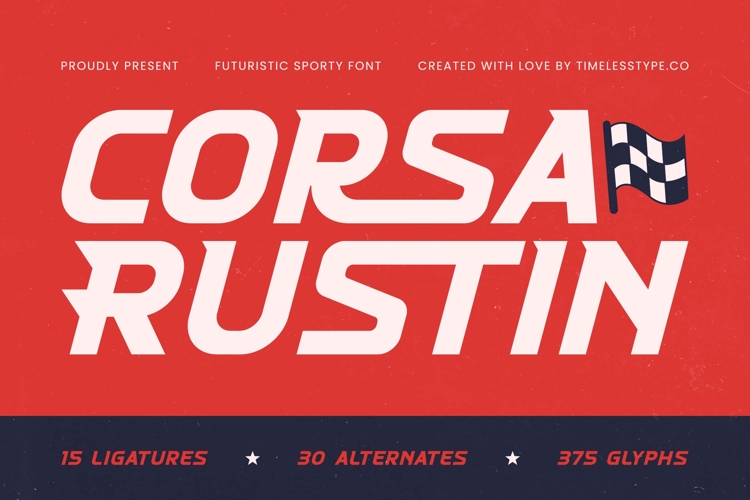
Corsa Rustin - Futuristic Sporty Font
Unleash unparalleled energy into your designs with Corsa Rustin - Futuristic Sporty Font, a typeface meticulously crafted to convey speed, strength, and innovation. This bold display font captures the essence of modern athleticism and cutting-edge technology, making it an ideal choice for projects demanding immediate visual impact. Its distinctive, angular forms and dynamic flow are engineered to command attention and infuse every headline with a sense of forward momentum.
Elevate your branding with the powerful presence of Corsa Rustin - Futuristic Sporty Font. Characterized by its sharp, confident lines and a strong, consistent baseline, this font projects professionalism while maintaining a vibrant, contemporary appeal. It's perfectly suited for creating logos and display text that require a futuristic and energetic aesthetic, ensuring your message is both memorable and visually compelling across all mediums.
With its extensive multilingual support, Corsa Rustin - Futuristic Sporty Font adapts seamlessly across global markets, making it incredibly versatile for international projects. This comprehensive font package also includes 15 ligatures and 30 alternates within its 375 glyphs, offering designers exceptional creative flexibility to customize and refine their typography for a truly unique and impactful outcome.
Corsa Rustin - Futuristic Sporty Font is ideally applied in sportswear branding, automotive design, e-sports, modern packaging, and high-impact event promotion. It excels in creating dynamic logos, powerful headlines, and engaging marketing materials for tech companies, fitness brands, or any venture aspiring to communicate innovation and excitement. Choose this font to define your brand with an unmistakable futuristic edge.